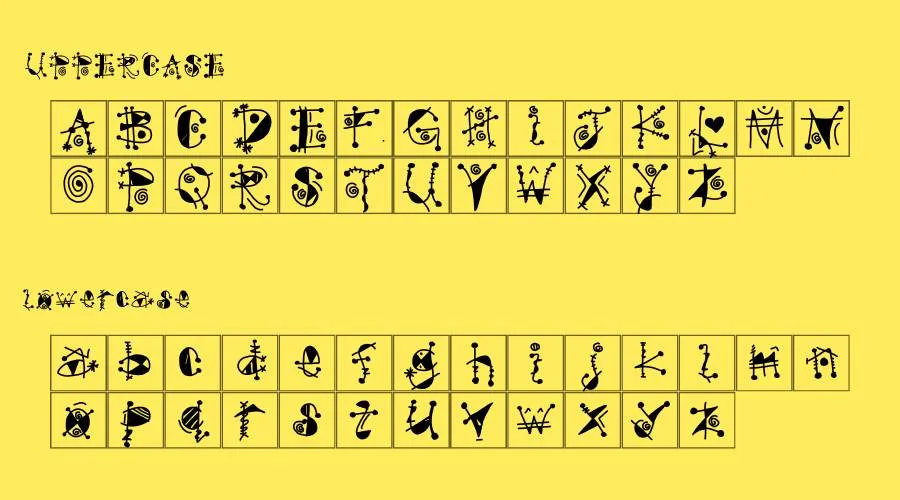
Gypsy Font
About Gypsy Font
Gypsy Font is designed by Bogdan Zochowski. The letters of this font demonstrate its versatility. With full concentration and experience, each letter has been created.
Therefore, its letters didn't contain any errors. In addition to creating covers and poster designs, you can also create business cards, logos, and product designs with clean and elegant textures.
Web development can also be done on it. There are different weights available along with a wide range of languages supported by this amazing font. A similar font to this typeface is the sneakers script font which can make new stunning projects.
This will allow it to create various designs in different languages. This font moreover comprises in-vogue glyphs and characters. With its beautiful Interchanges, the typeface will doubtlessly include more identity to your plans.